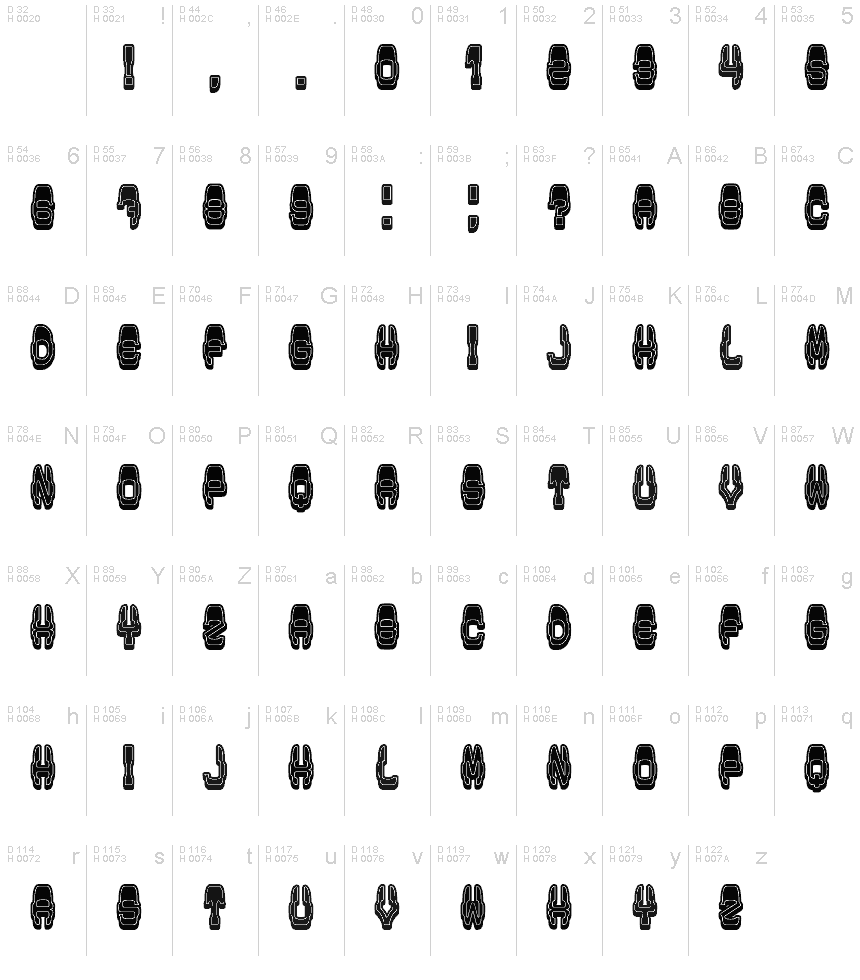
Modish Filled Regular
Modish Filled is a captivating display font that exudes a groovy, retro-inspired aesthetic. Designed by Vladimir Nikolic, this condensed typeface boasts a unique filled style that adds depth and dimension to the letterforms. Its bold, striking shapes command attention, making it an ideal choice for attention-grabbing headlines, logotypes, and eye-catching typographic treatments.
The font's condensed width and filled design lend it a bold, impactful presence, while the distinct curves and angles of the characters convey a sense of playfulness and dynamism. Modish Filled's versatility allows it to shine in a variety of design contexts, from vintage-inspired branding to modern editorial layouts, adding a touch of vintage flair with a contemporary twist.